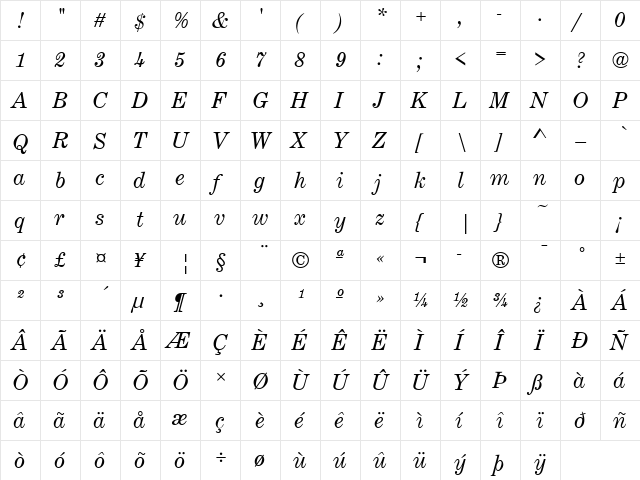
CenturyExpTReg Italic
Design Context for CenturyExpTReg Typeface
CenturyExpTReg takes a measured approach to typography — its balanced proportions and neutral character make it a reliable workhorse for both digital and print work. Its italic angle brings a sense of urgency and motion to the letterforms.
Pro Tip: Try CenturyExpTReg for annotation and caption copy alongside an upright companion — the contrast in angle creates a dynamic but ordered typographic system.